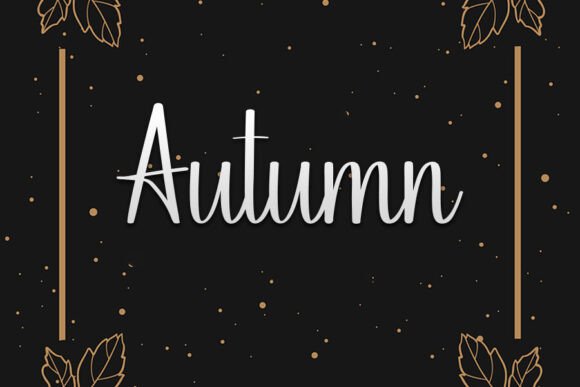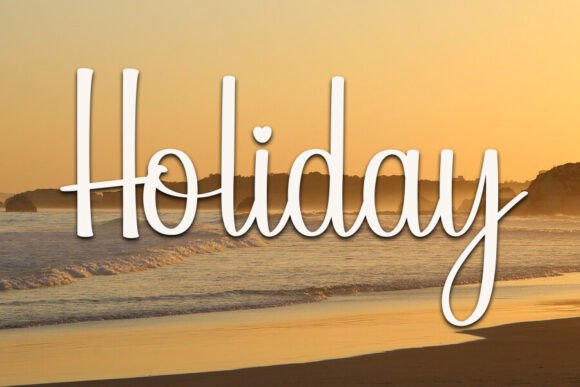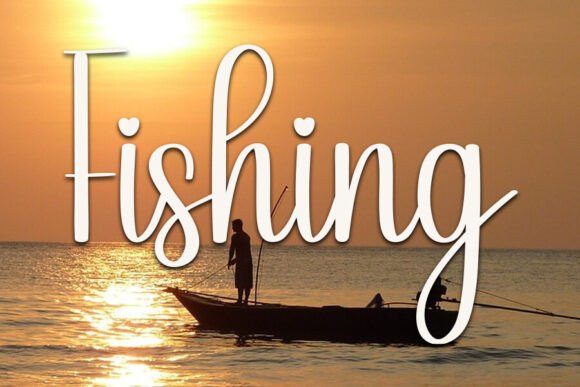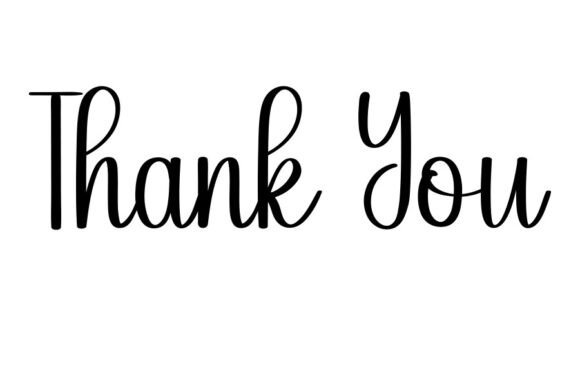
Introducing Handmade Font: The Perfect Addition to Your Design Arsenal
Are you tired of using the same old fonts in your designs? Look no further! Handmade Font is a simple yet elegant handwritten font that can elevate your projects to the next level. With its versatility and natural feel, this font is perfect for a wide range of applications, from greeting cards to headlines, and everything in between.
The Charm of Handmade Font
Handmade Font is a beautifully crafted font that exudes a sense of simplicity and elegance. Its handwritten style gives it a personal touch, making it perfect for designs that require a human touch. The font’s clean lines and smooth curves make it easy to read, while its subtle imperfections add a touch of whimsy and charm.
One of the best things about Handmade Font is its versatility. It can be used in a variety of contexts, from formal to informal, and can adapt to different design styles with ease. Whether you’re designing a greeting card, a poster, or a social media graphic, this font is sure to make your project stand out.
Applications of Handmade Font
So, where can you use Handmade Font? The possibilities are endless! Here are a few ideas to get you started:
- Greeting Cards: Add a personal touch to your greeting cards with Handmade Font. Its elegant style makes it perfect for birthdays, weddings, and other special occasions.
- Headlines: Use Handmade Font to create eye-catching headlines for your blog posts, articles, or social media graphics.
- Posters: Create stunning posters with Handmade Font. Its bold and yet elegant style makes it perfect for promoting events, products, or services.
- Social Media Graphics: Add a touch of personality to your social media graphics with Handmade Font. Use it to create engaging quotes, announcements, or promotions.
Why Choose Handmade Font?
So, why should you choose Handmade Font for your next project? Here are a few reasons:
- Unique Style: Handmade Font has a unique style that sets it apart from other fonts. Its handwritten style gives it a personal touch that can make your designs stand out.
- High-Quality: Handmade Font is a high-quality font that is designed to produce crisp and clear text, even at small sizes.
Tips for Using Handmade Font
Here are a few tips for using Handmade Font in your designs:
- Pair it with Other Fonts: Handmade Font can be paired with other fonts to create a unique and interesting design. Try pairing it with a sans-serif font for a bold and modern look.
- Use it for Headlines: Handmade Font is perfect for headlines. Use it to create eye-catching titles that grab attention.
- Add a Personal Touch: Use Handmade Font to add a personal touch to your designs. Its handwritten style makes it perfect for creating personalized gifts, such as monogrammed tote bags or customized mugs.
In conclusion, Handmade Font is a versatile and elegant font that can add a simple and natural feel to your designs. Its handwritten style gives it a personal touch, making it perfect for a wide range of applications, from greeting cards to headlines. With its ease of use, high-quality design, and unique style, Handmade Font is a must-have for designers and crafters looking to elevate their projects to the next level.